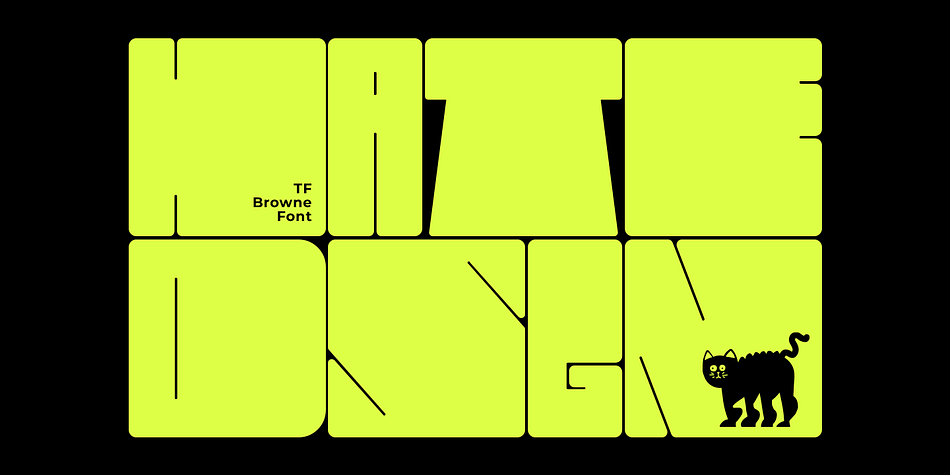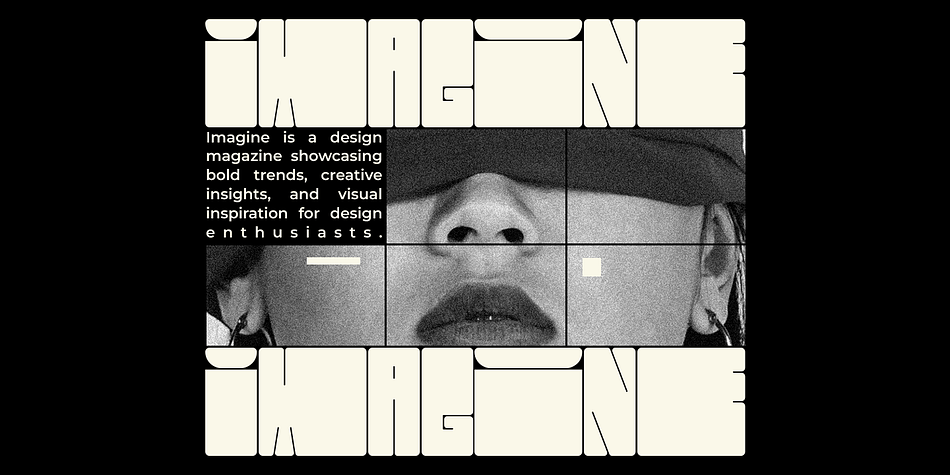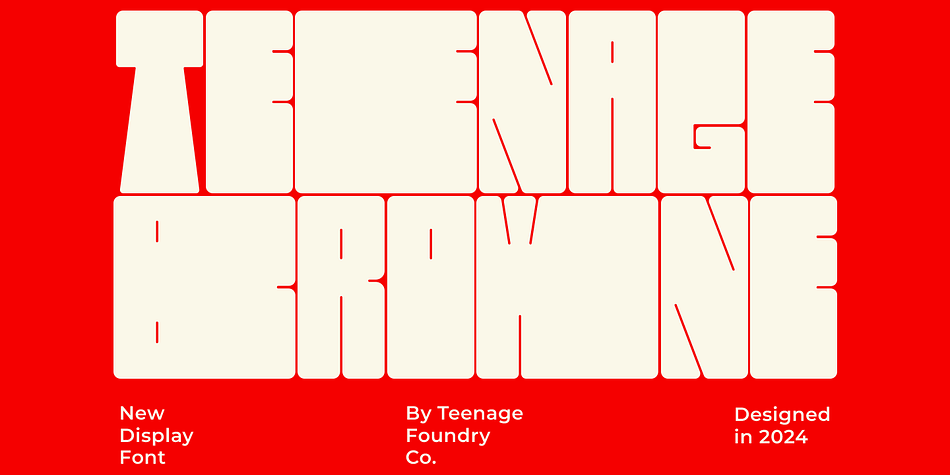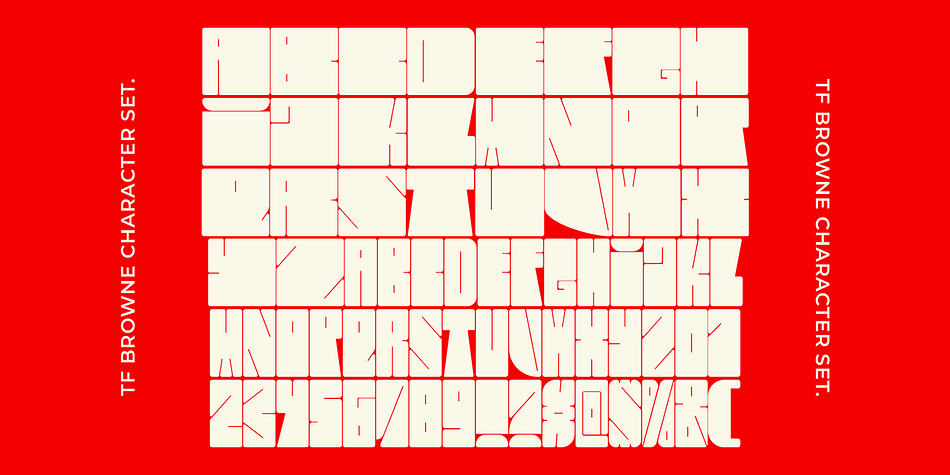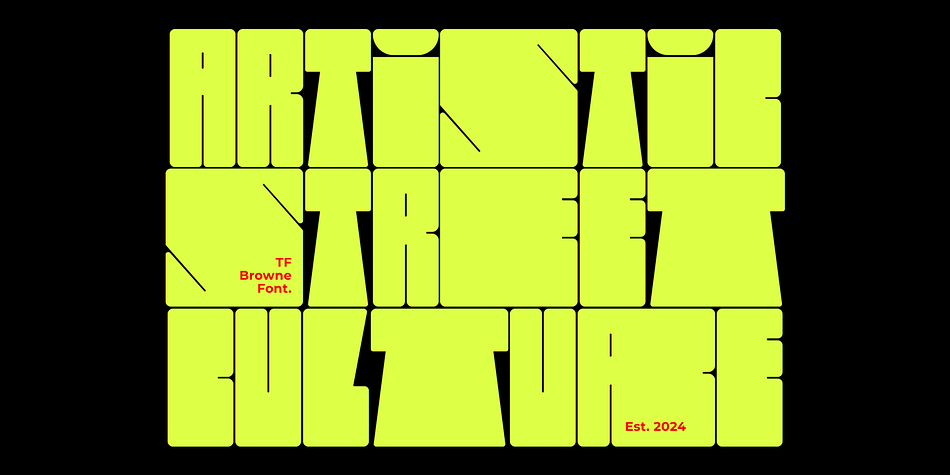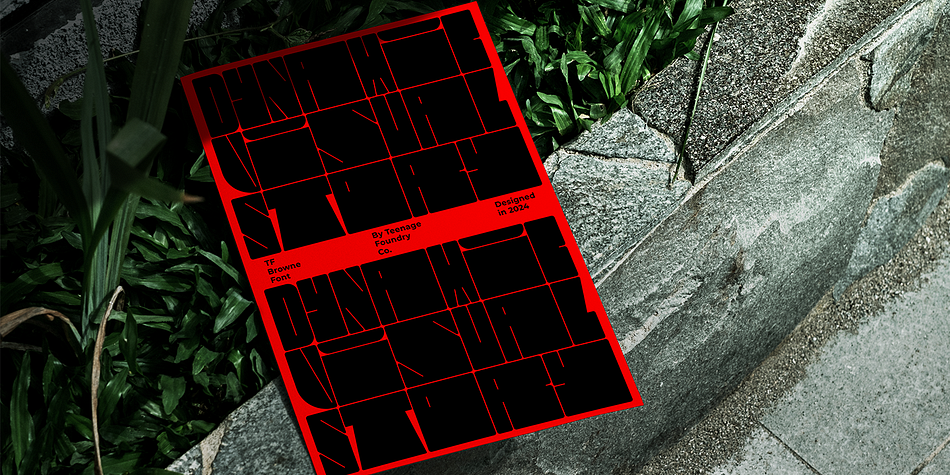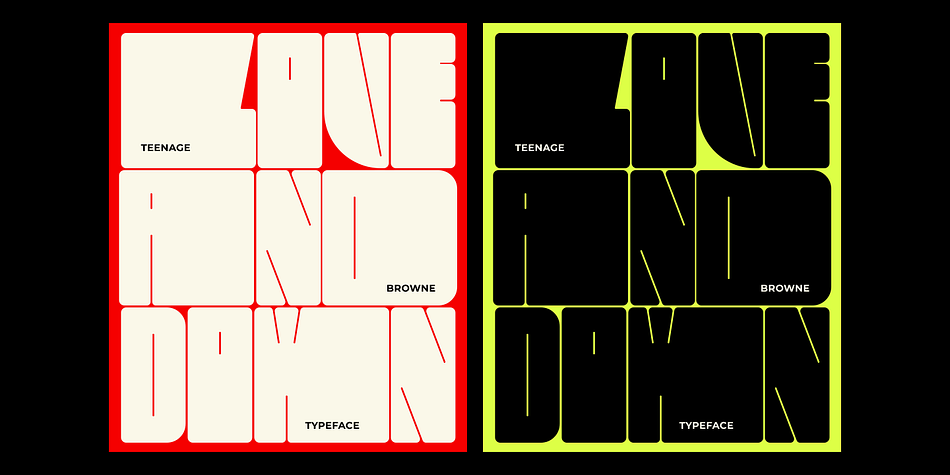
Teenage Browne
Teenage Browne is a display sans font family published by Teenage Foundry.
Teenage Browne is a bold and stylish display font, with a thicker alternative available in the lowercase letters.
This sans-serif font is a versatile option for designers looking to create impactful branding, attention-grabbing logos, striking book covers, and more. Perfect for adding a modern and edgy touch to any design project.